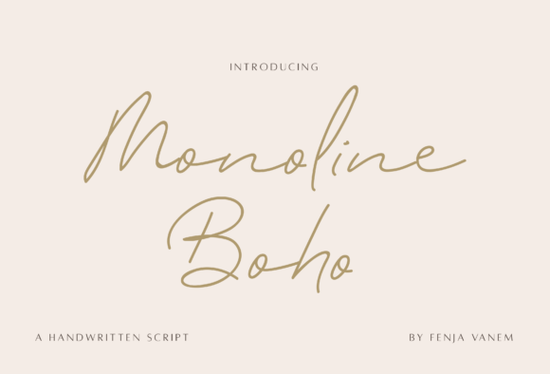
If you design for print-on-demand products or create social media graphics, you already know how hard it is to find a font that feels both clean and personal. Many script fonts are either too ornate for everyday use or so minimal they lack warmth. The Monoline Boho Font strikes a nice balance: it keeps the simple, single-weight look of a monoline typeface while adding just enough handwritten character to feel approachable.
What makes a monoline script font different from a regular script?
Monoline fonts use a consistent stroke width throughout every letter. There are no thick or thin parts like you would see in a traditional calligraphy font. This makes them especially useful for small text, logos, and any project where readability matters. Monoline Boho takes that clean foundation and adds subtle flourishes so it does not feel stiff. The result is a typeface that works for both headlines and body text without losing its personality.
Because the font is PUA encoded, you can access alternate glyphs and swashes directly from your character map. That means you are not stuck with the default letter shapes. If you want a bouncier "y" or a longer tail on your "g," those options are just a click away. Designers who work with Monoline Boho Font on Creative Fabrica often mention this flexibility as a major time-saver when creating unique branding assets.
Can this font work for print-on-demand and small business branding?
Yes, and here is why. Print-on-demand sellers need fonts that look good at different sizes and on different products. A t-shirt quote, a mug text, or a tote bag phrase all have different space constraints. Monoline fonts handle this well because the uniform stroke weight keeps the text readable whether you scale it up for a poster or down for a business card.
Small business owners can use this typeface for:
- Logo drafts and wordmarks that need a handmade feel
- Social media quote graphics that should look consistent across posts
- Product labels and packaging where space is limited
- Website headers that pair well with a clean sans-serif body font
The extra swashes give you room to customize without making the design look busy. If you compare it to other minimal script fonts like Baseliner Font, you will notice that Monoline Boho leans more toward a relaxed, boho aesthetic rather than a rigid geometric style. That makes it a good fit for wedding stationery, boutique clothing brands, and home decor items.
What kind of projects work best with a boho script style?
The "boho" part of the name is not just marketing. This font has a natural, slightly uneven rhythm that mimics real handwriting. It works well in projects where you want to communicate warmth and authenticity. Think about:
- Greeting cards and invitation suites for casual events
- Branding for wellness or lifestyle blogs
- Children's book covers or educational materials
- Hand-lettered style posters for markets or small shops
For a more structured single-line look, you might also explore Succuline Single Line Font. That one offers a different kind of minimalism with a slightly more formal feel. The choice really depends on whether you want your text to look loose and playful or neat and controlled.
How do you access the swashes and alternate characters?
Here is a quick way to get started:
- Install the font on your computer after downloading from Creative Fabrica.
- Open your design software and type your word or phrase.
- Select the text and open the Glyphs panel (in Illustrator it is under Window > Type > Glyphs).
- Double-click any alternate letter to replace the default one.
- Look for swashes that extend above or below the baseline to add flair.
If you are new to using alternate glyphs, pairing this font with Camila Ashton Font for contrast can help you build a more complete visual system. That font has a different weight, so it works as a nice accent for subheadings or short phrases.
What should you avoid when using monoline script fonts?
A common mistake is using too many swashes in one word. Because monoline fonts have even stroke widths, every extra flourish becomes visually prominent. Stick to one or two decorative letters per word, especially in longer phrases. Another thing to watch: monoline fonts can look too simple on their own. If you are designing a logo, try adding a subtle texture or pairing the font with a hand-drawn icon to give it more depth.
For a different take on handwritten style, Almond Script Font offers more variation in stroke width while keeping a natural feel. Comparing these options helps you decide how much "imperfection" you want in your final design.